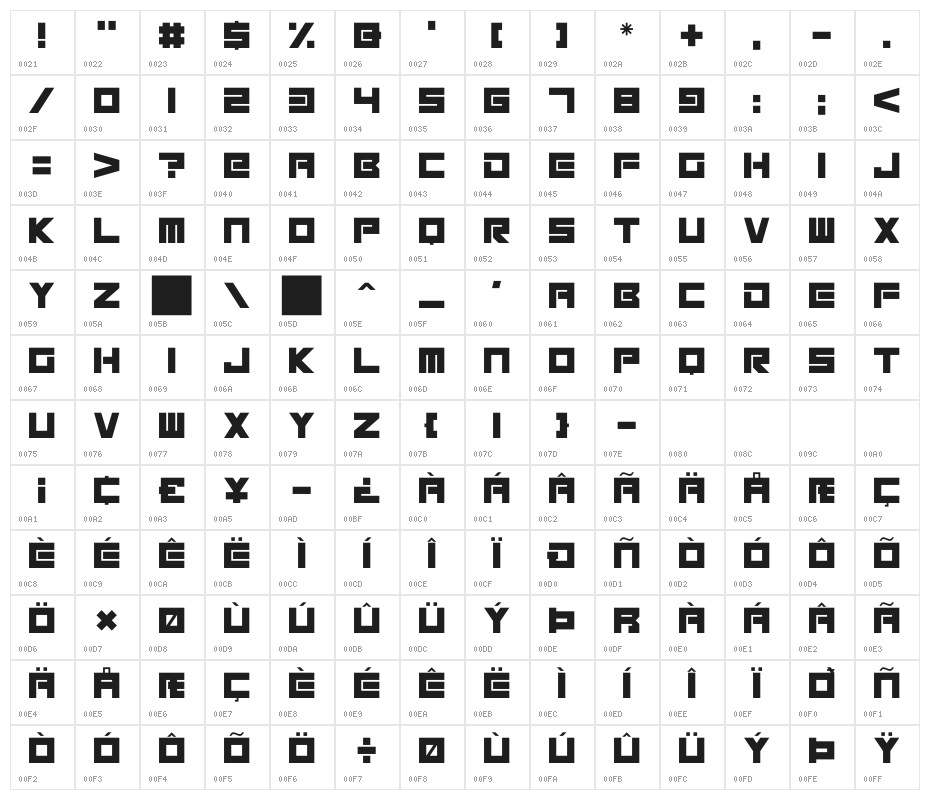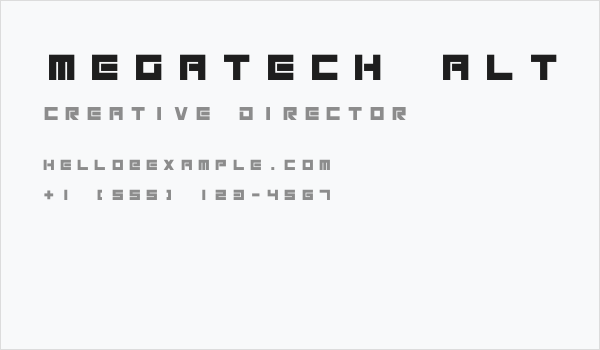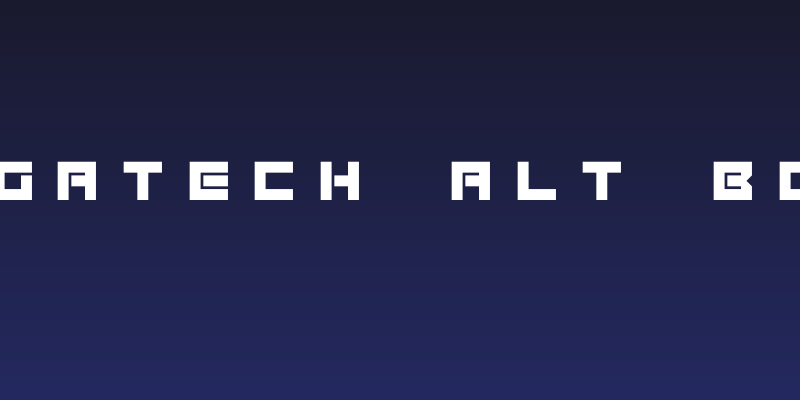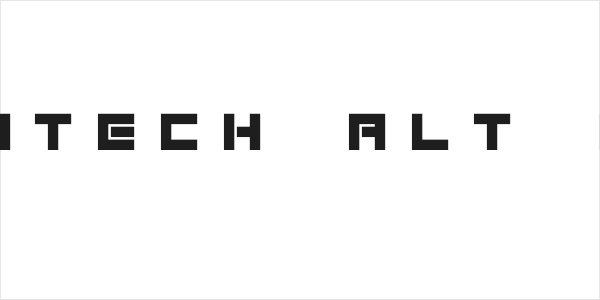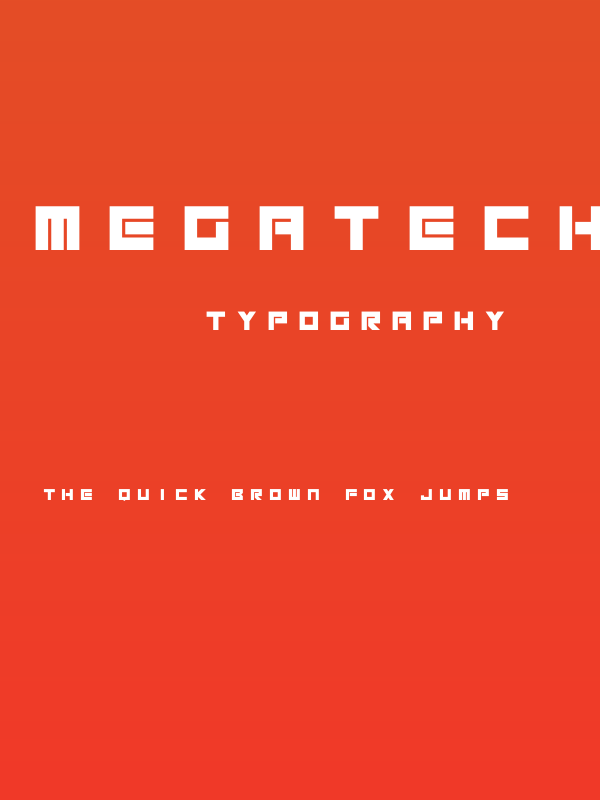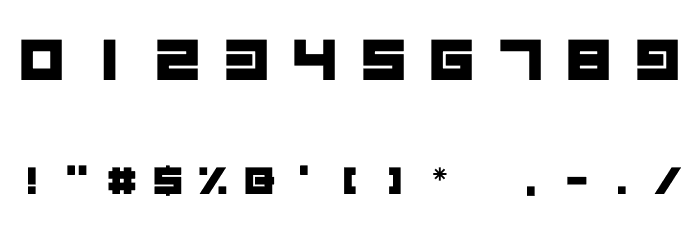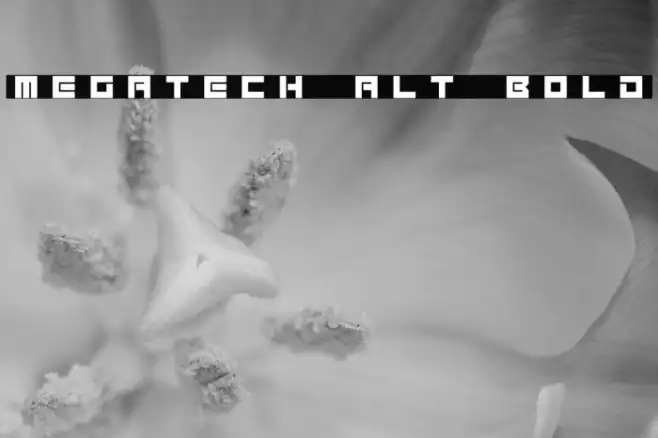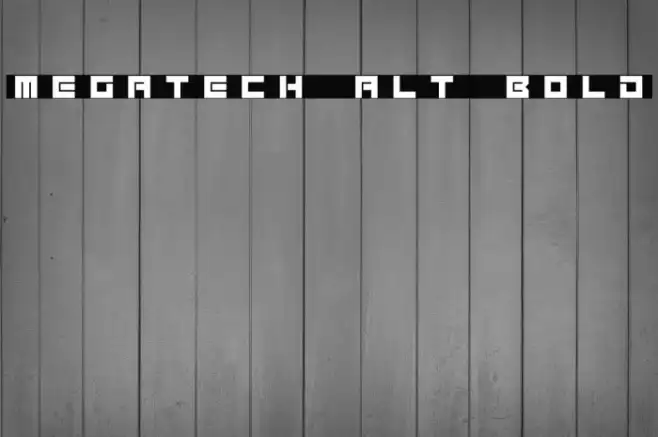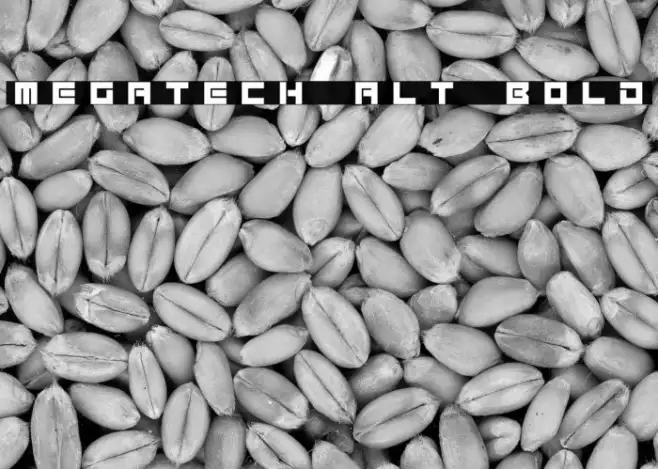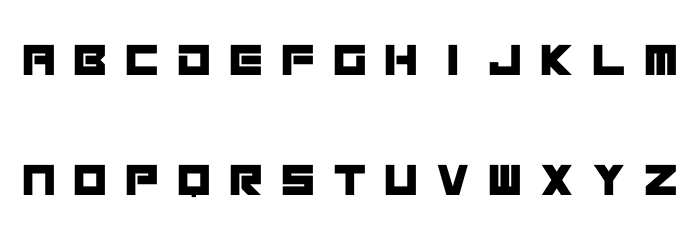
Megatech Alt Bold Font
Megatech Alt Bold Description
This font features a bold, futuristic design with geometric shapes and sharp angles. The characters are constructed with a blocky, digital aesthetic, reminiscent of technology and modern architecture. The uppercase and lowercase letters maintain a consistent style, with a strong emphasis on symmetry and uniformity. The numerals and special characters follow the same design principles, ensuring a cohesive look across all elements. This font is ideal for projects that require a modern, tech-inspired feel, such as branding for tech companies, video game titles, or sci-fi themed designs.
| Proposed Projects | Ideal for tech branding, video game titles, sci-fi themes, and digital interfaces. |